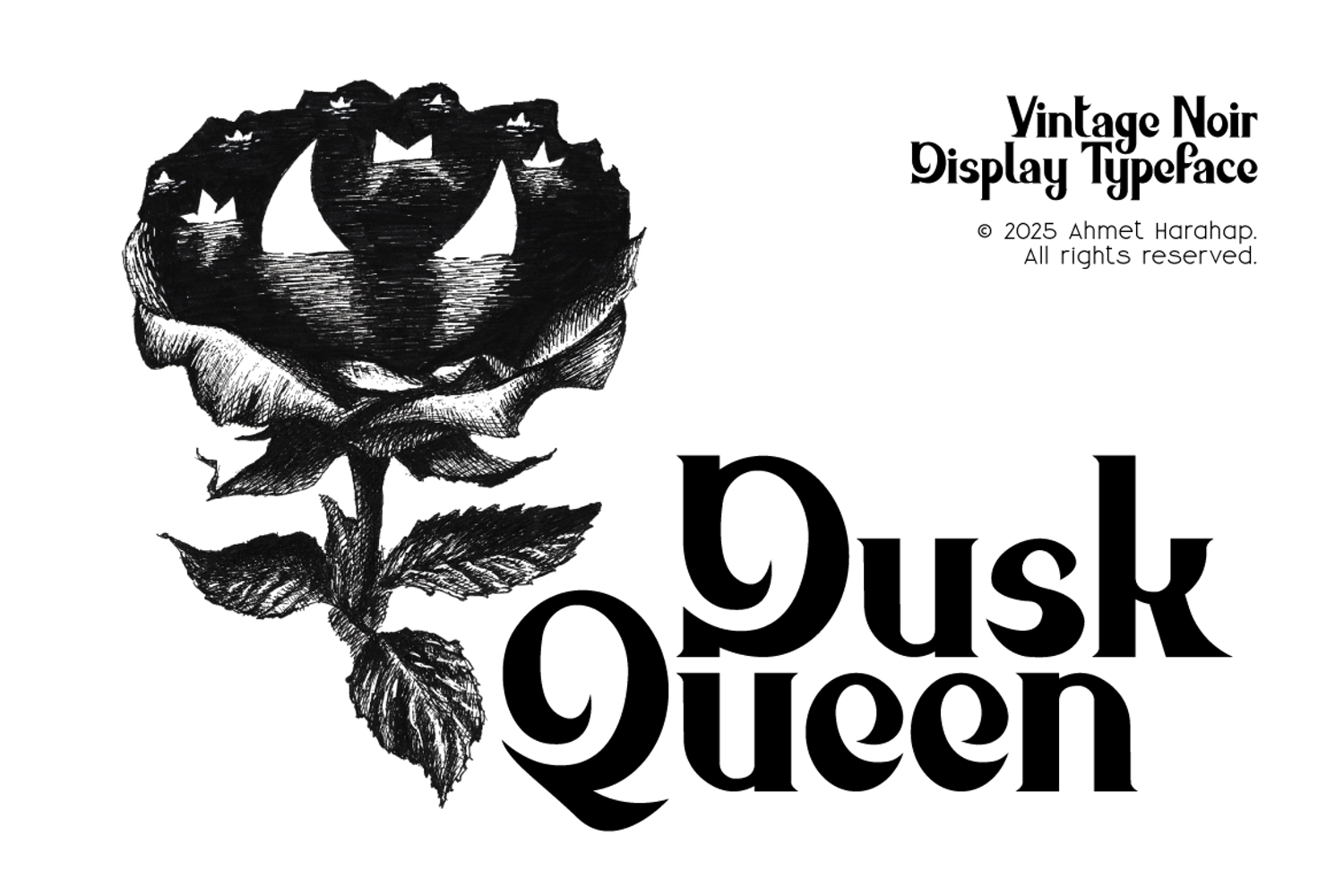
Dusk Queen - Vintage Noir Display Typeface
Dusk Queen
Dusk Queen is a vintage display serif typeface inspired by 1960s rock culture and classic typography from that period. It features bold letterforms with elegant curves, creating a strong yet refined visual character.
The design blends retro typographic influence with dark, elegant aesthetic making it well suited for black-and-white layouts. Its timeless style works across a wide range of creative applications while maintaining a distinctive vintage presence.
Dusk Queen is ideal for posters, album artwork, branding, editorial headlines, packaging, and logo design where a classic and expressive display typeface is needed.
• Vintage-inspired display serif
• Bold and elegant letterforms
• Strong retro character with a clean finish
• Suitable for music, fashion, editorial, and branding projects
• Works well in monochrome and dark-themed designs